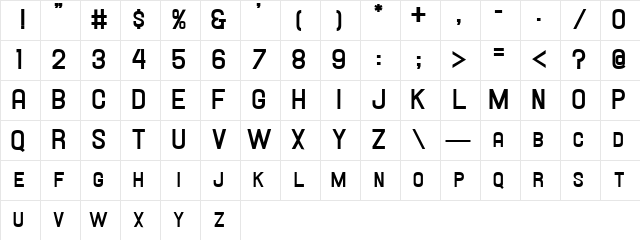
Hallandale SC Bold JL Regular
Foundry: Jeff's Fonts & Dingbats
Designer: Jeffrey N. Levine
Design Context for Hallandale SC Bold JL
Hallandale SC Bold JL is a composed and adaptable typeface that performs quietly and consistently across a wide range of design contexts. Its bold stroke weight gives it real presence on the page.